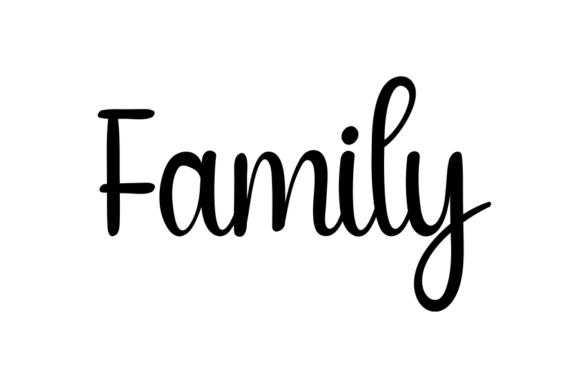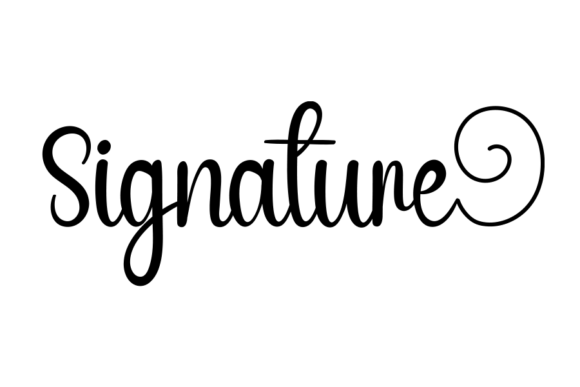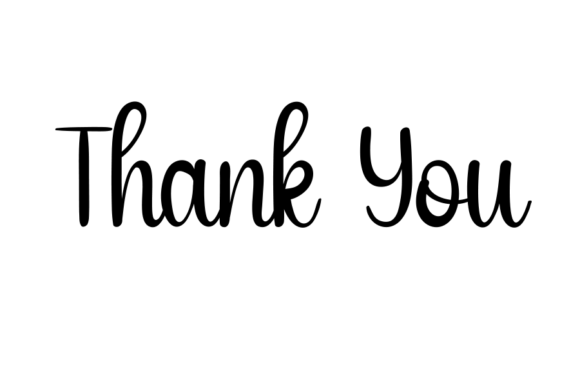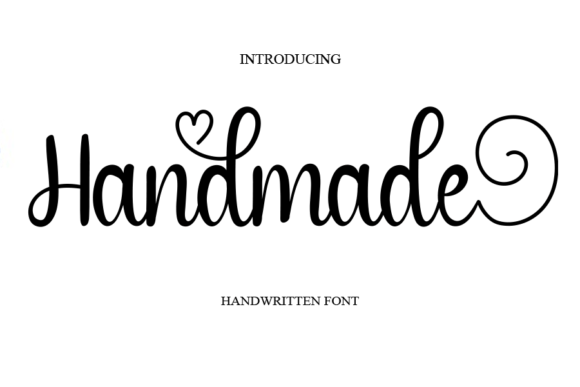
Introducing Handmade Font: Elevate Your Creations with a Touch of Elegance
Are you a designer, crafter, or DIY enthusiast looking for a font that can add a touch of elegance and sophistication to your projects? Look no further than Handmade Font, a gorgeous script font that is both trendy and stylish. In this article, we’ll take a closer look at what makes Handmade Font special and how it can elevate your creations.
What is Handmade Font?
Handmade Font is a beautiful script font that is perfect for anyone looking to add a touch of handmade charm to their projects. With its flowing lines and elegant curves, this font is sure to impress. Whether you’re creating invitations, crafts, or digital projects, Handmade Font is the perfect choice.
Key Features of Handmade Font
• PUA Encoded: Handmade Font is PUA (Private Use Area) encoded, which means that you can access all of the glyphs and swashes with ease. This makes it easy to use the font in your projects, even if you’re not a professional designer.
• Trendy and Stylish: Handmade Font is a trendy and stylish font that is perfect for anyone looking to add a touch of elegance to their projects.
• Handmade Charm: With its flowing lines and elegant curves, Handmade Font has a handmade charm that is sure to impress.
Benefits of Using Handmade Font
So why should you choose Handmade Font for your projects? Here are just a few benefits of using this gorgeous script font:
• Elegance and Sophistication: Handmade Font adds a touch of elegance and sophistication to any project.
• Easy to Use: With its PUA encoding, Handmade Font is easy to use, even for those who are new to design.
• Versatility: Handmade Font is perfect for a wide range of projects, from invitations and crafts to digital projects and more.
How to Use Handmade Font in Your Projects
Using Handmade Font in your projects is easy. Here are a few tips to get you started:
• Pair it with Other Fonts: Handmade Font looks great when paired with other fonts. Try pairing it with a bold font for a striking contrast.
• Use it for Headings: Handmade Font is perfect for headings and titles. Use it to add a touch of elegance to your project.
• Experiment with Swashes: With its PUA encoding, Handmade Font comes with a range of swashes and glyphs. Experiment with these to add a touch of personality to your project.
Who is Handmade Font for?
Handmade Font is perfect for anyone who loves to create. Here are a few examples of who might enjoy using this font:
• Designers: Whether you’re a professional designer or just starting out, Handmade Font is a great addition to your font library.
• Crafters: If you love to craft, Handmade Font is perfect for adding a touch of elegance to your projects.
• DIY Enthusiasts: Whether you’re creating invitations, decorations, or other DIY projects, Handmade Font is a great choice.
In conclusion, Handmade Font is a gorgeous script font that is perfect for anyone looking to add a touch of elegance and sophistication to their projects. With its PUA encoding, trendy and stylish design, and handmade charm, this font is sure to impress. Whether you’re a designer, crafter, or DIY enthusiast, Handmade Font is a great addition to your font library.